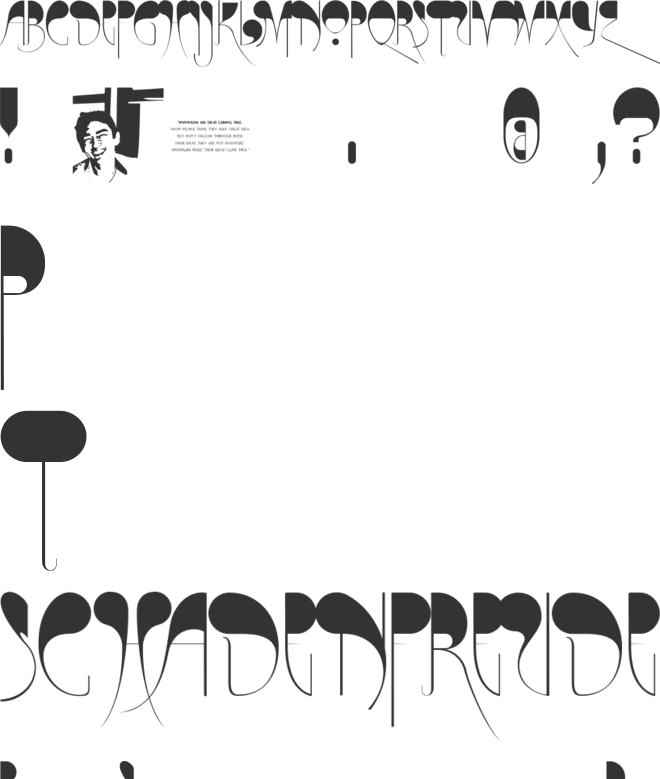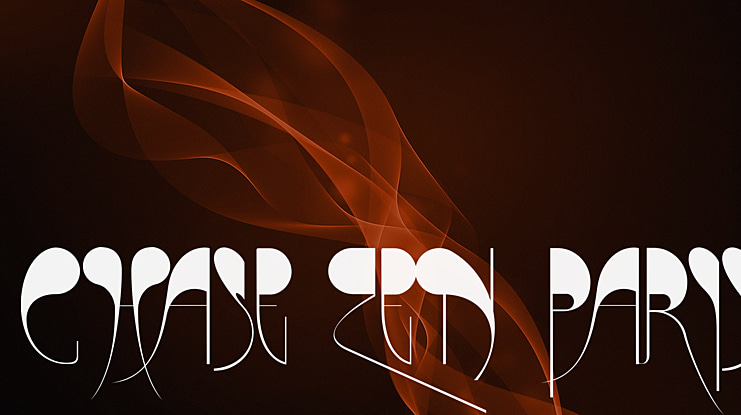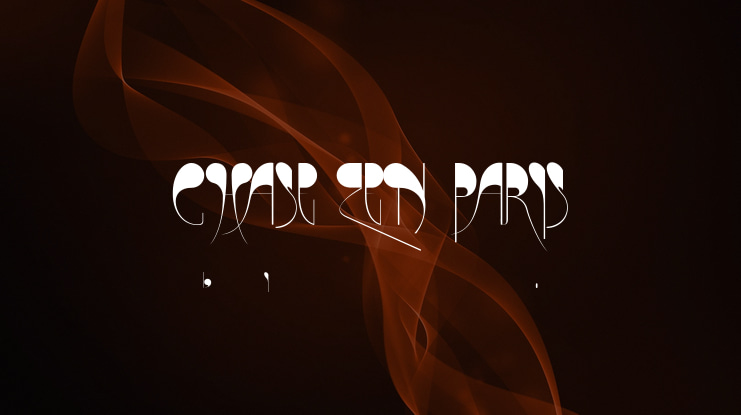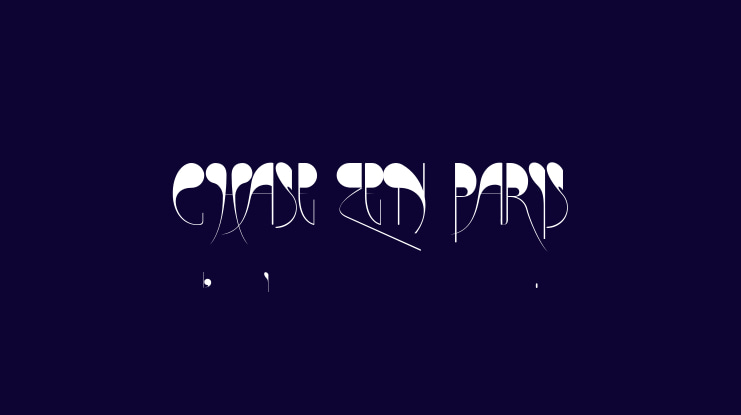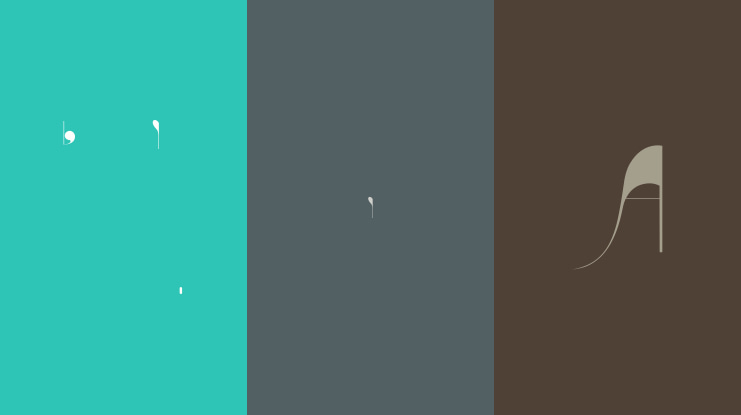
CHASE ZEN PARIS Font
this was a typeface i created that was in my file for over 15 years, i still have the original design. it looks very different from what you see now. i keep redesigning it over the years and putting it away, again and again. this is the final version. its a art deco font call paris before that i call it soulshy.